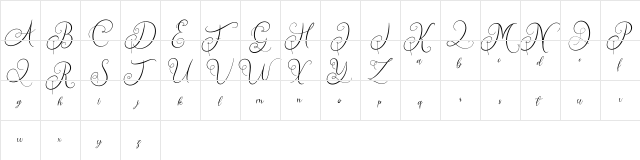
Quirtty FREE Regular
Design Context for Quirtty FREE Typeface
Quirtty FREE is a composed and adaptable typeface that performs quietly and consistently across a wide range of design contexts.